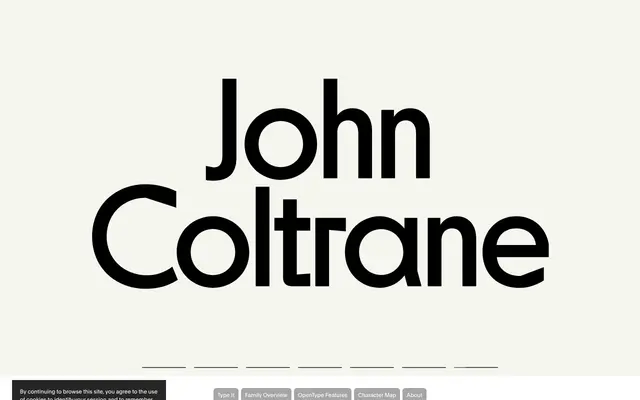
NEXT
Optimo · Ludovic Balland · 2007
Ludovic Balland's binary Book and Poster system, originally drawn for the Museum of Modern Art in Warsaw, with Mono and Pan companions.
A sans-serif by Ludovic Balland that sits at the intersection of constructivism and humanism. Initiated in 2007 for the Museum of Modern Art in Warsaw and partly inspired by Marek Sigmund's design for the Polish Ministry of Transportation, NEXT is built as a binary programme: each weight comes as Book, with linear flow for text, and Poster, where narrow and wider letters create dynamic visual rhythm. A Mono variant and Pan Book and Pan Poster cuts round out the family, giving art and culture identities a coherent typographic toolkit.
Optimo describes NEXT as designed at the intersection of constructivism and humanism, with a binary programme of Book and Poster variants, originally drawn for the Museum of Modern Art in Warsaw identity.